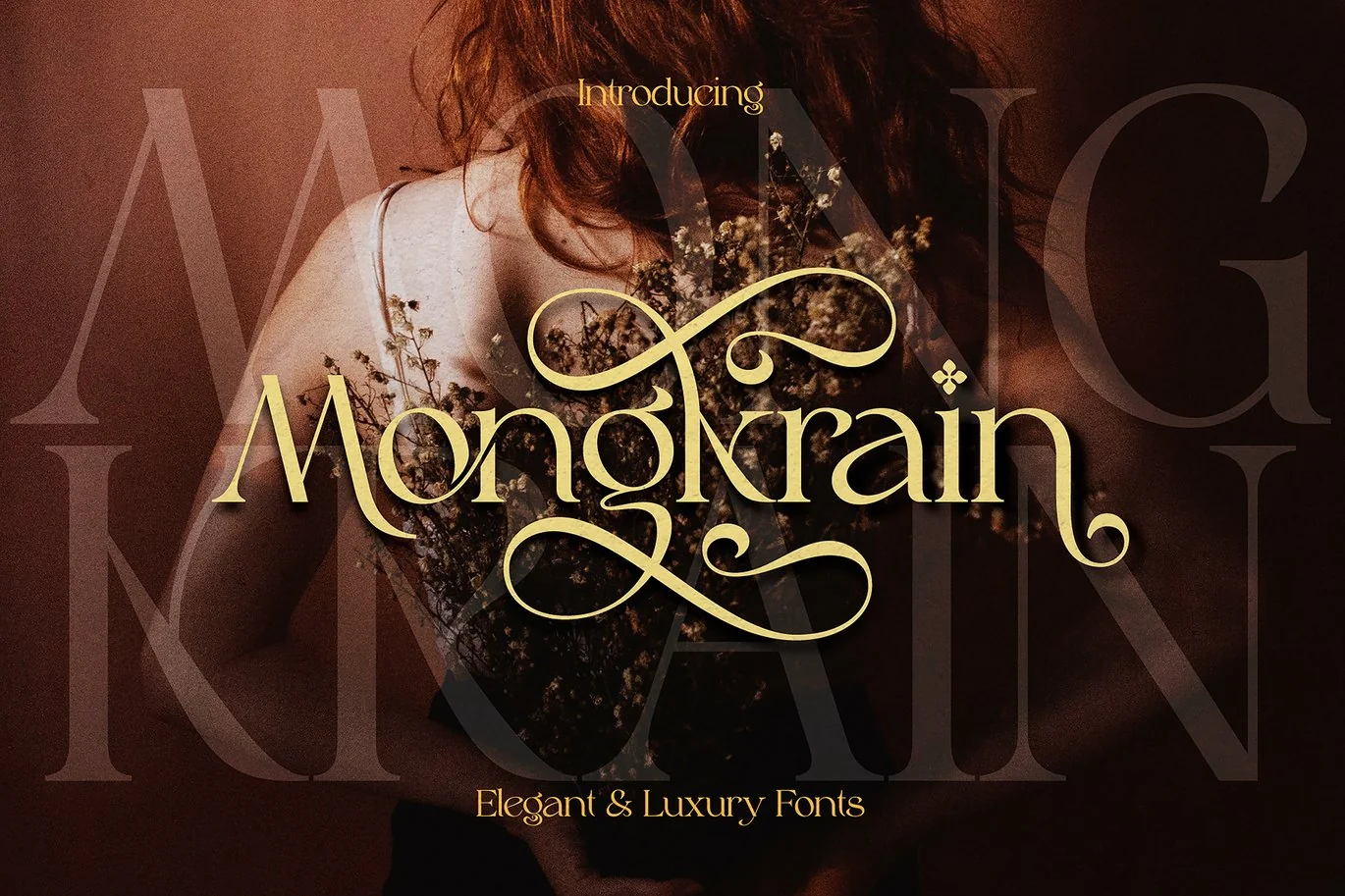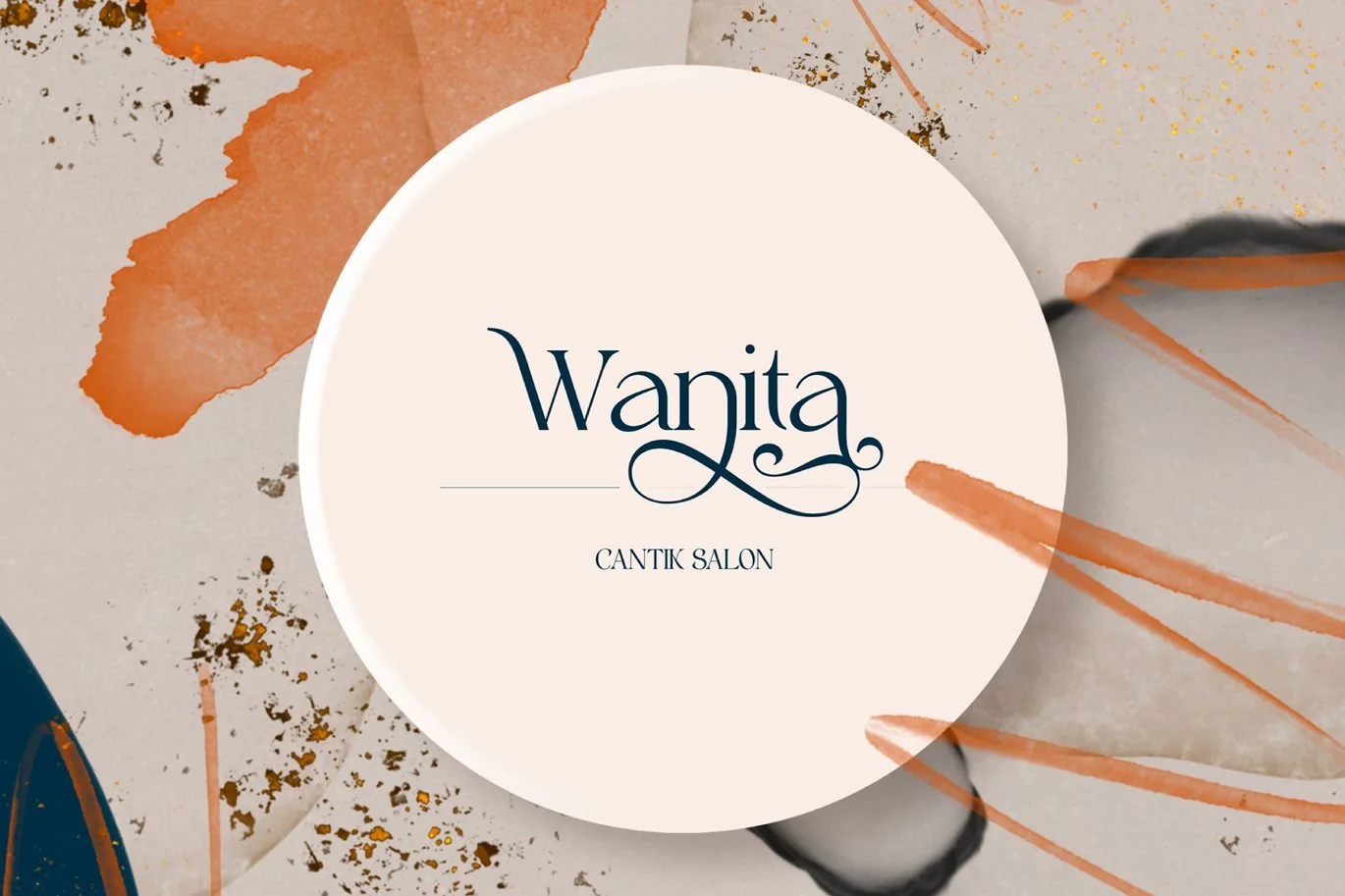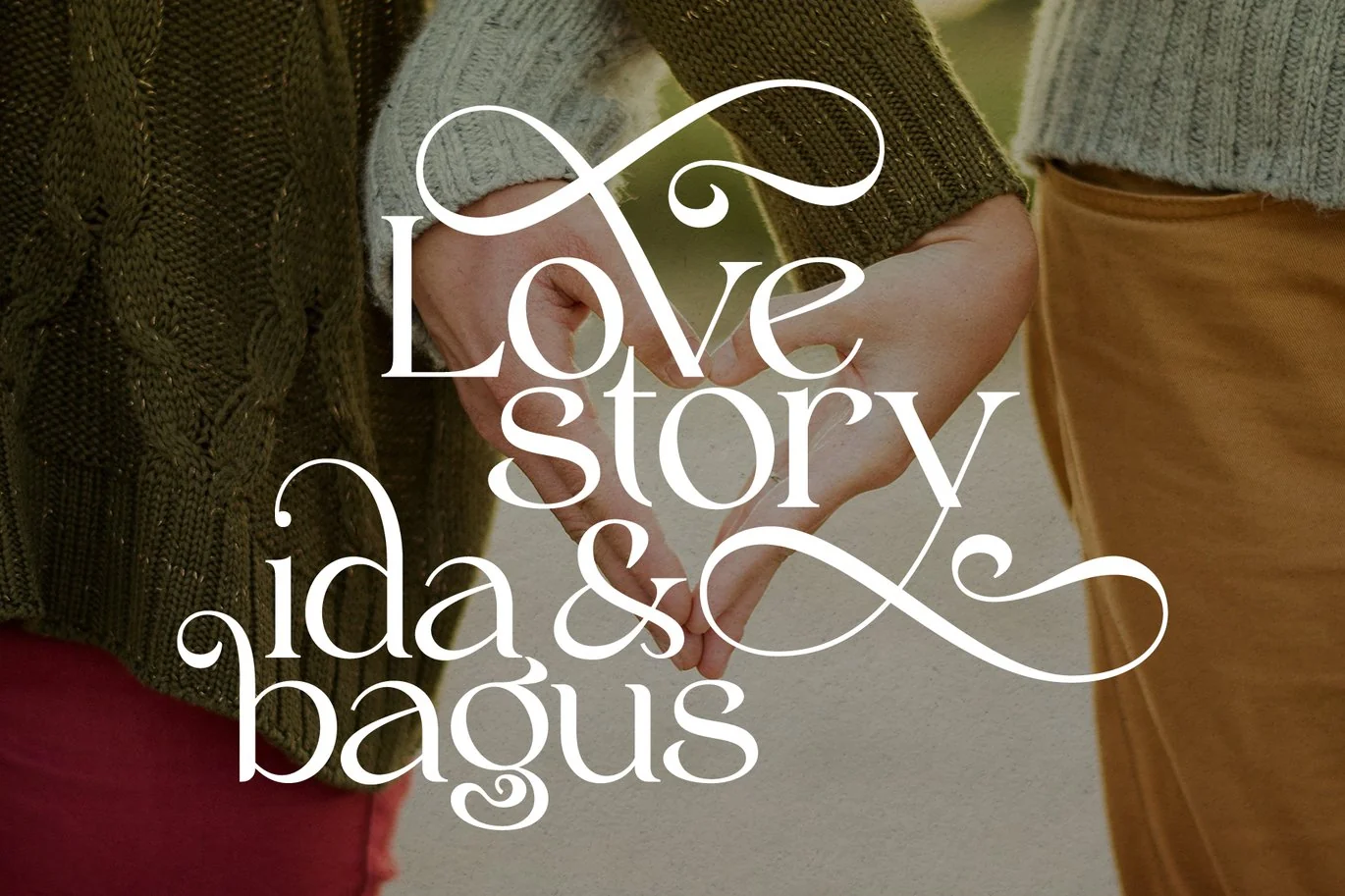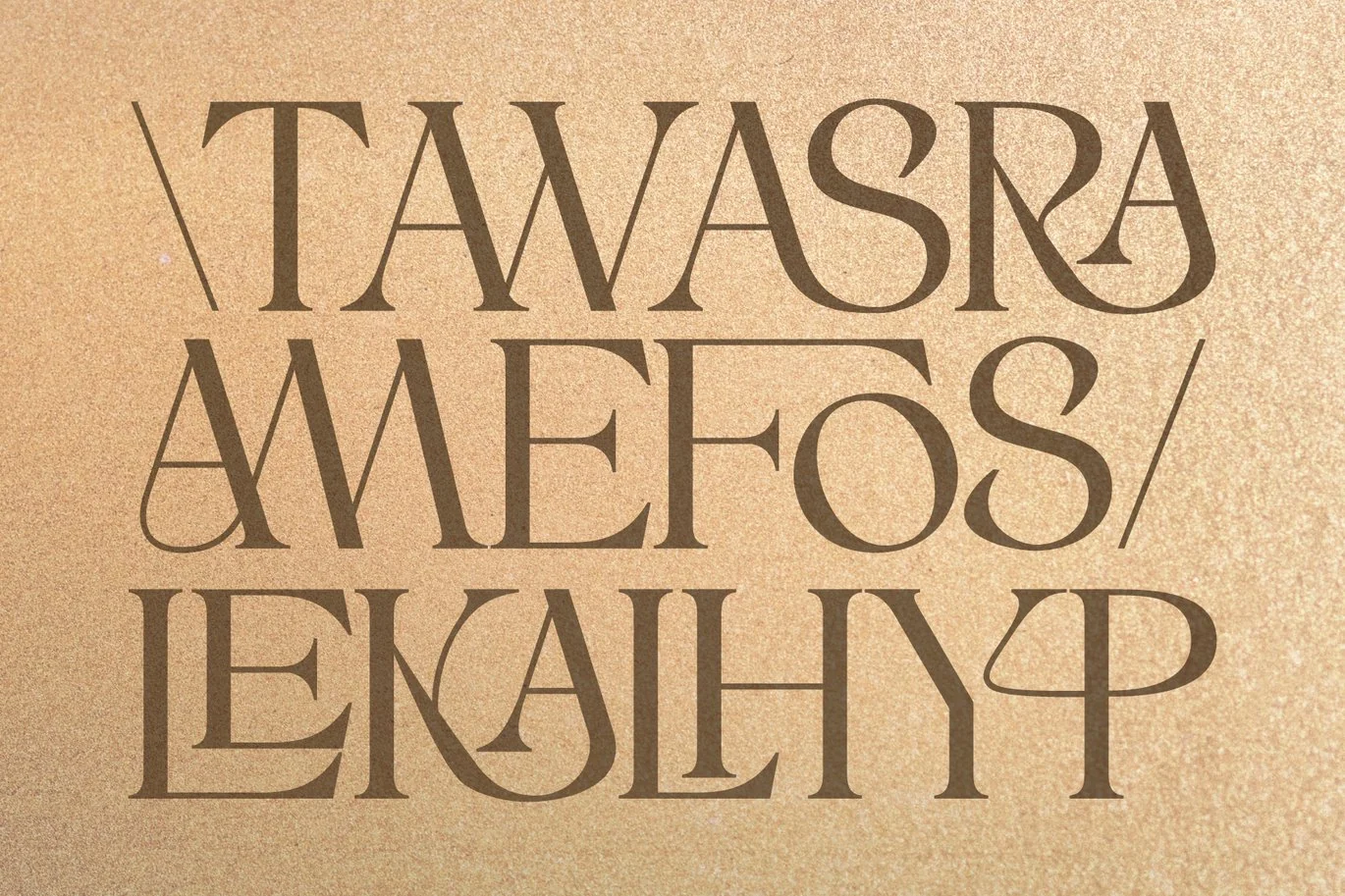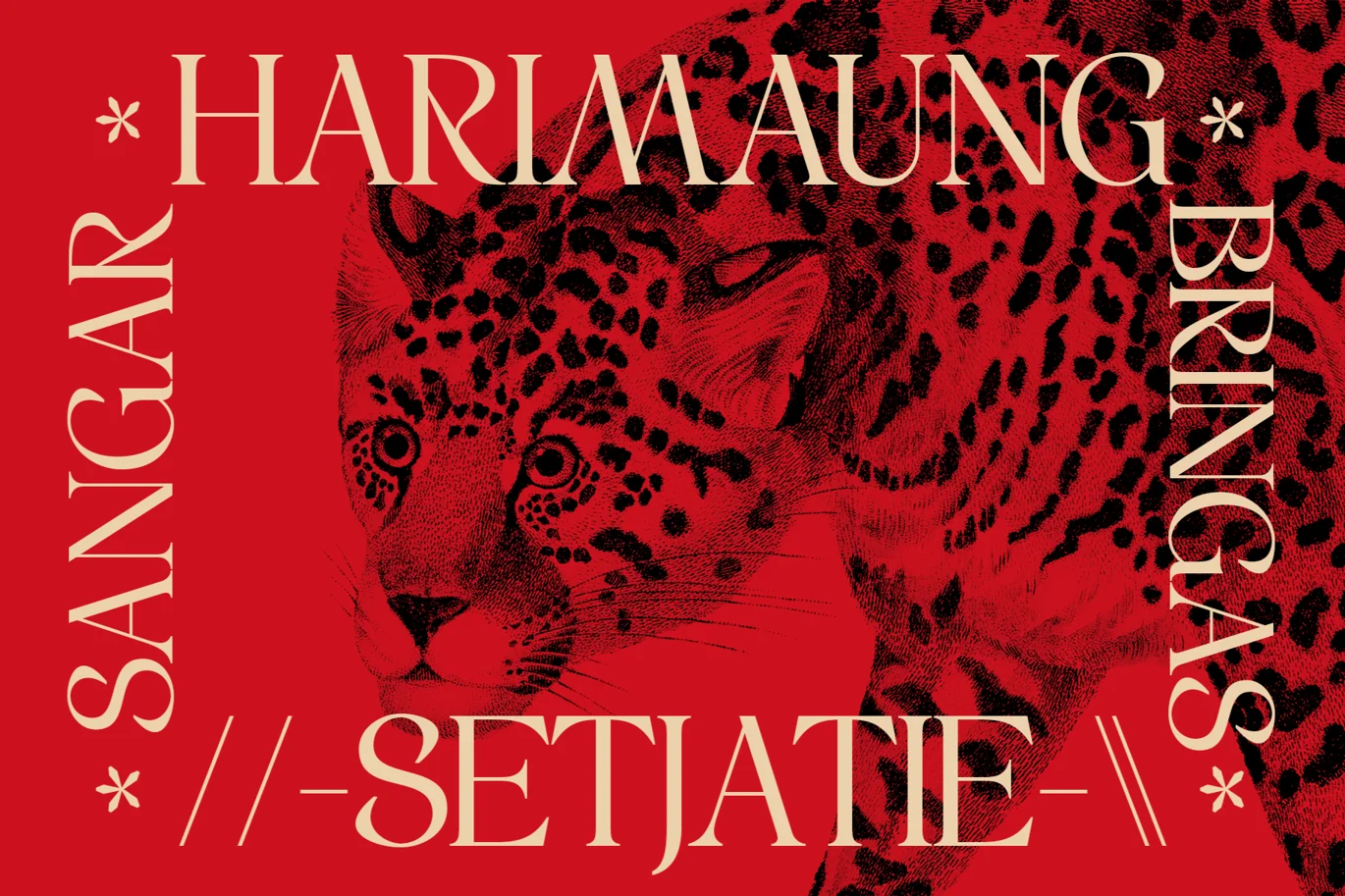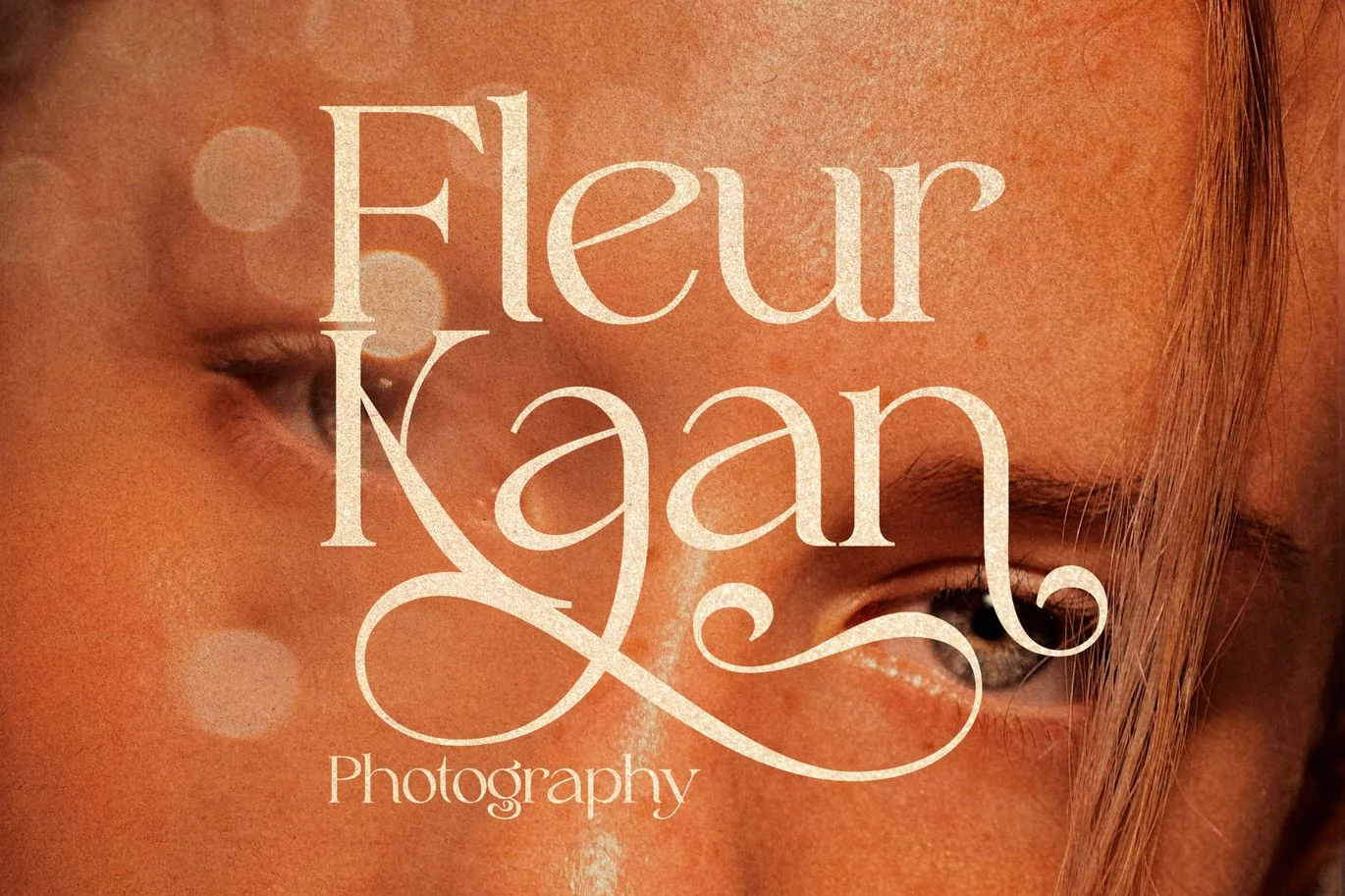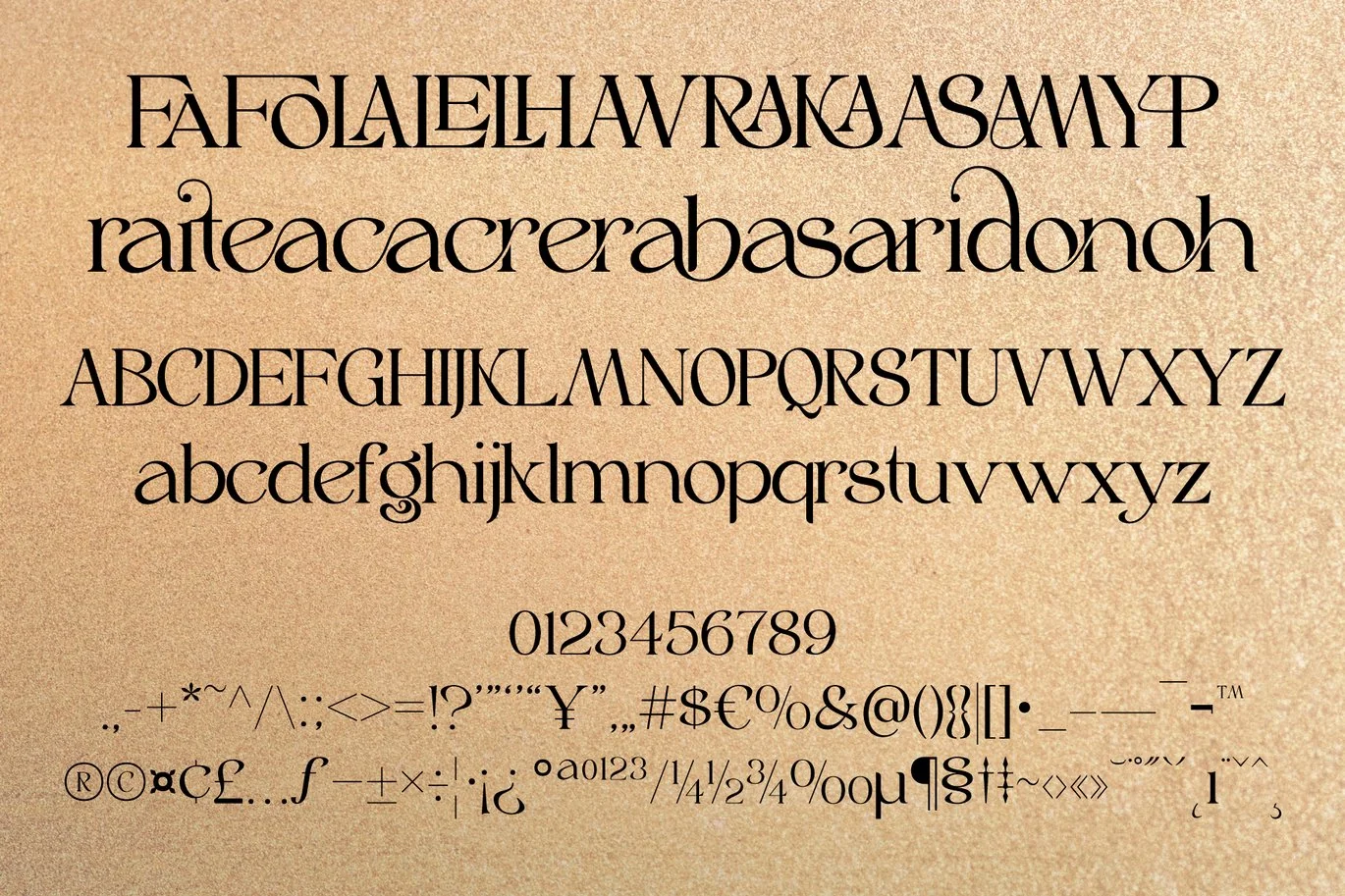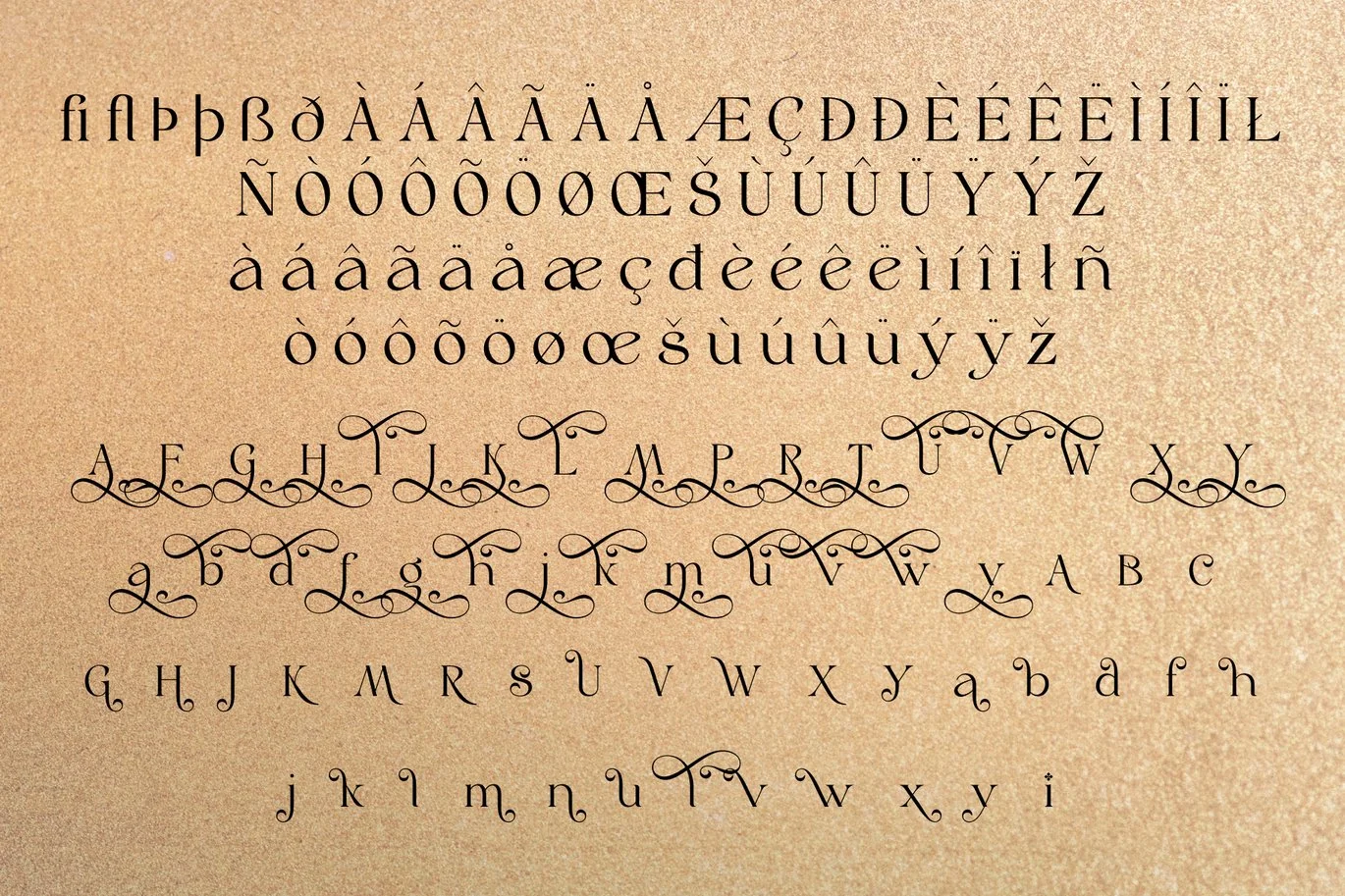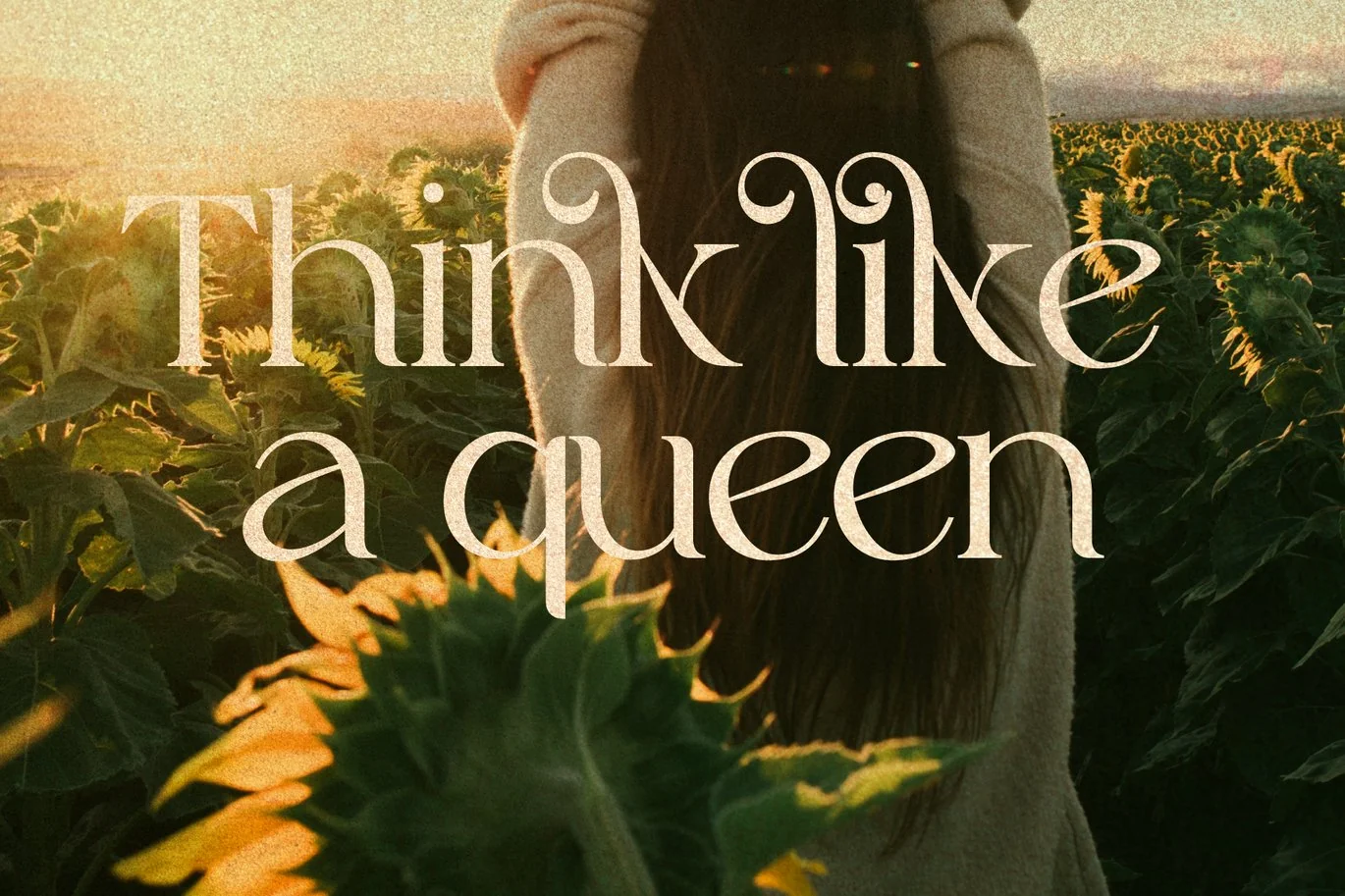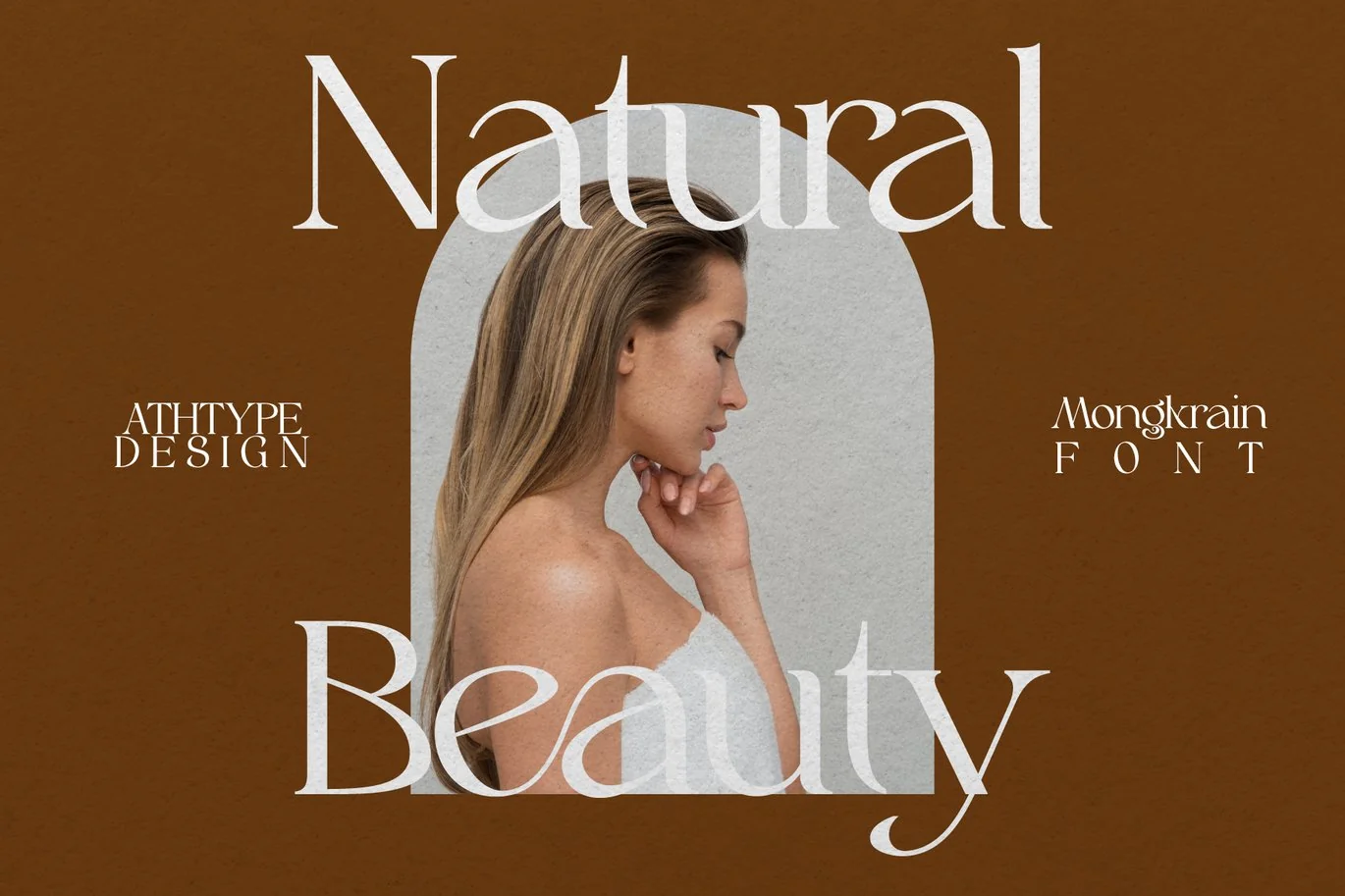
Mongkrain Elegant Luxury Font
Mongkrain – Elegant luxury font by Authen Type. Classic and elegant style designs lend themselves very well to branding designs for beauty and feminine products. Mongkrain could also be interesting for layouts, brochures, logos and invitations with different font concepts